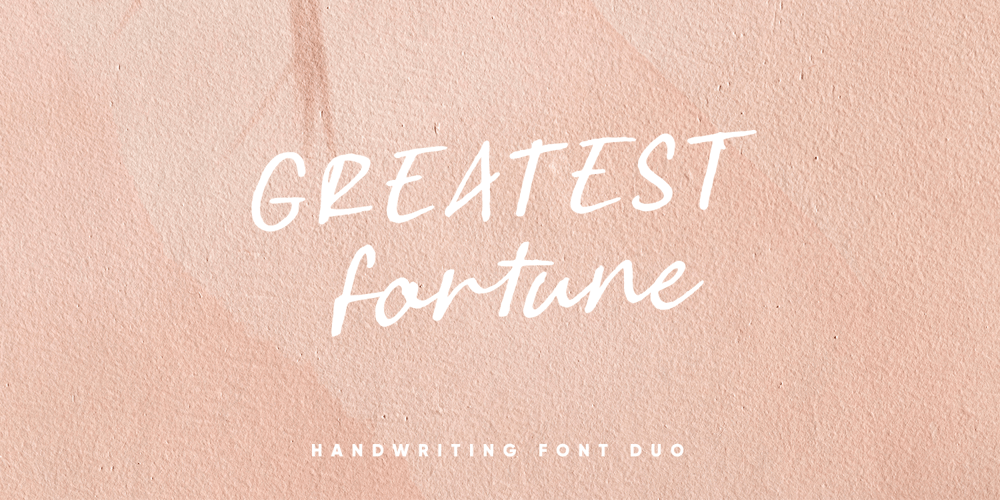
Greatest Fortune
Greatest Fortune font
Greatest Fortune Font Family was designed by Andre Bima Falah Rabbani and published by Atharuah Studios. Greatest Fortune contains 2 styles and family package options. Greatest Fortune is an incredibly realistic and perfect handwritten font duo. The combination of various ligature (uniquely designed letter combinations) makes the font look more natural.In addition, the Greatest Fortune font also includes an all-caps version, complete with an alternative to the letters A-Z. Suitable as emphasis in a word or as a standalone font.Each font file includes uppercase, lowercase, numbers, punctuation, and multilingual support.This font also contains 61 ligatures which make the font look very natural.That’s it! I hope you enjoy it.Feel free to comment if there are issues or queries.You can also say hello to me on Instagram: https://www.instagram.com/atharuah_Thank You!